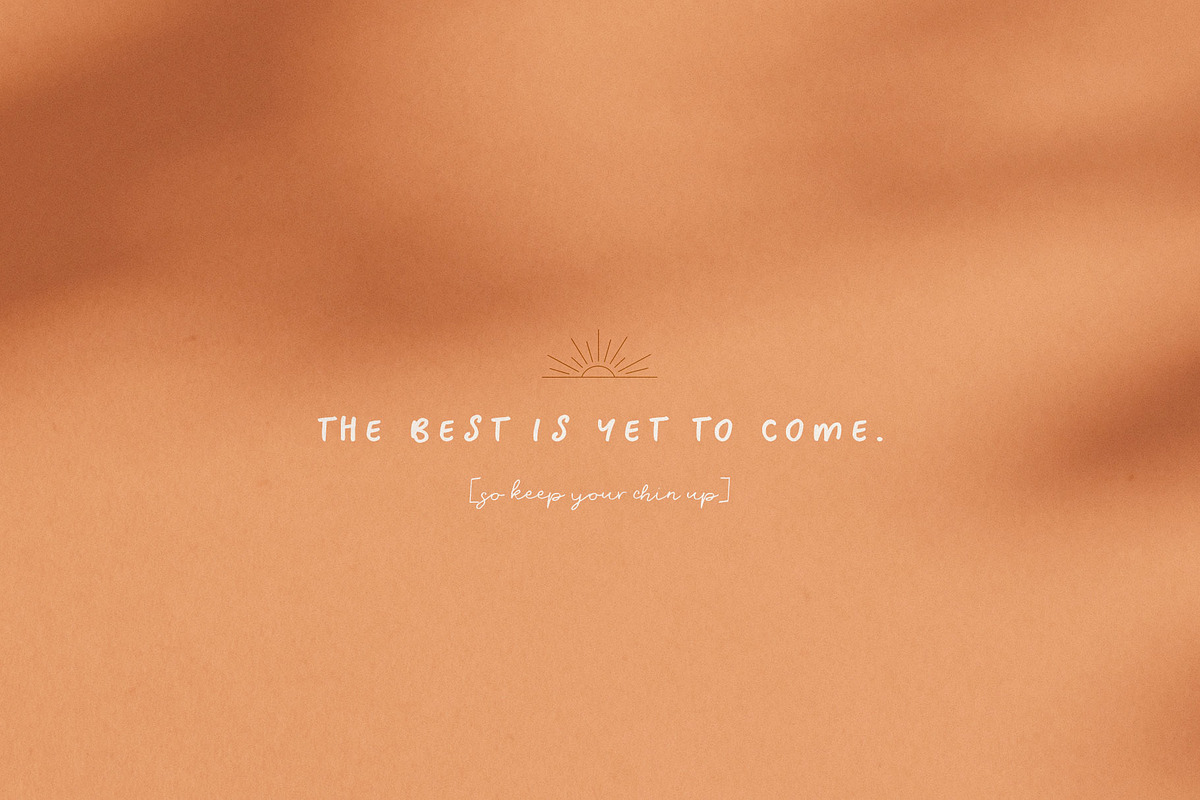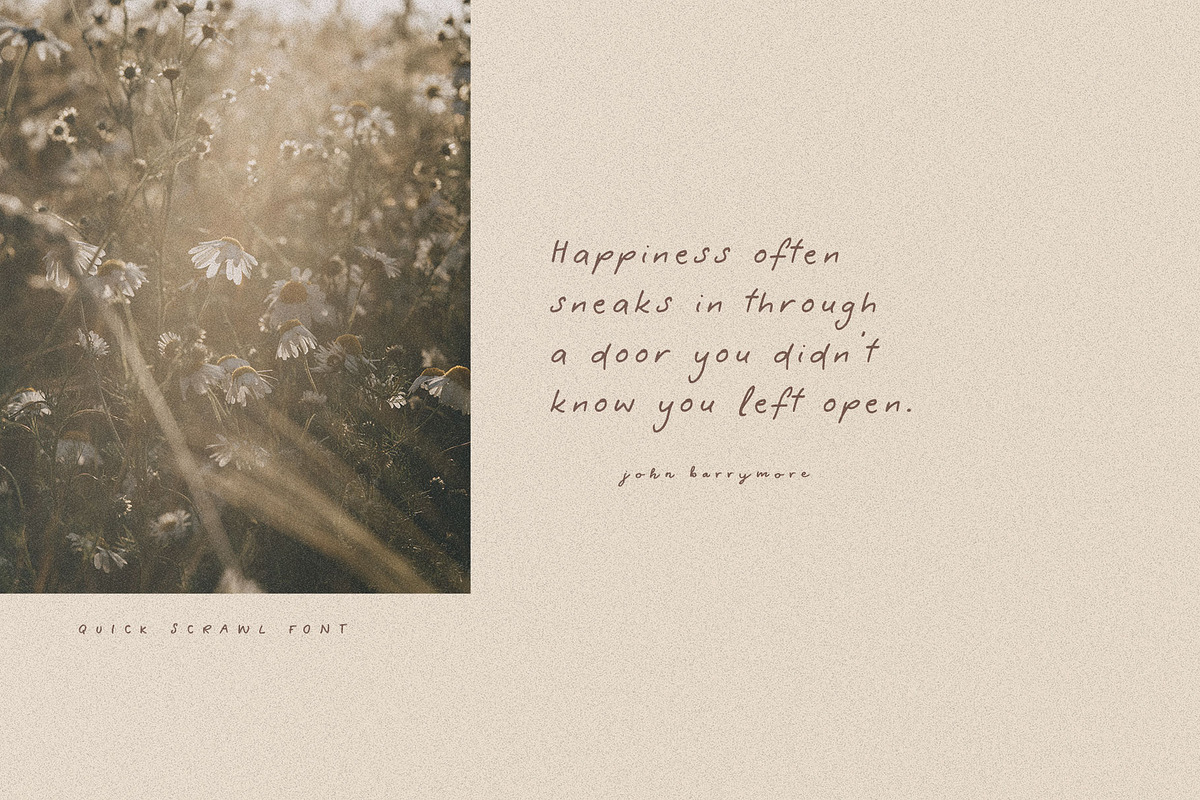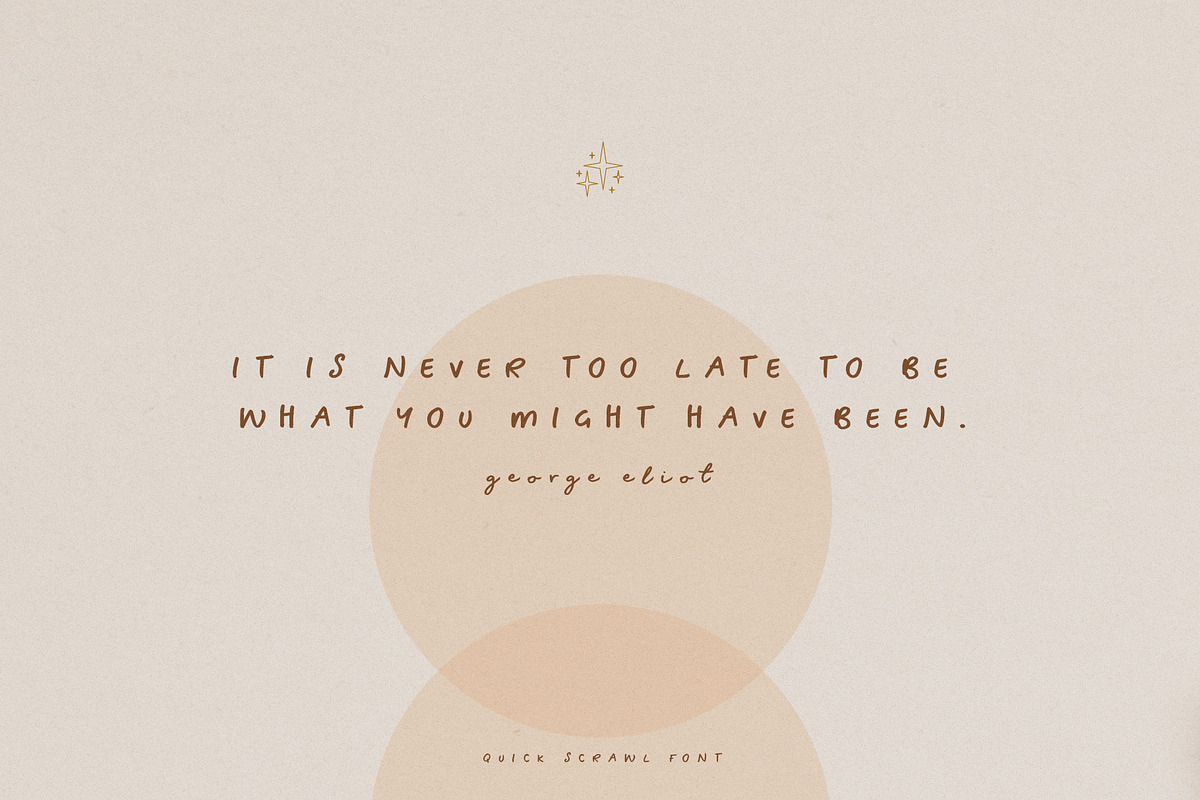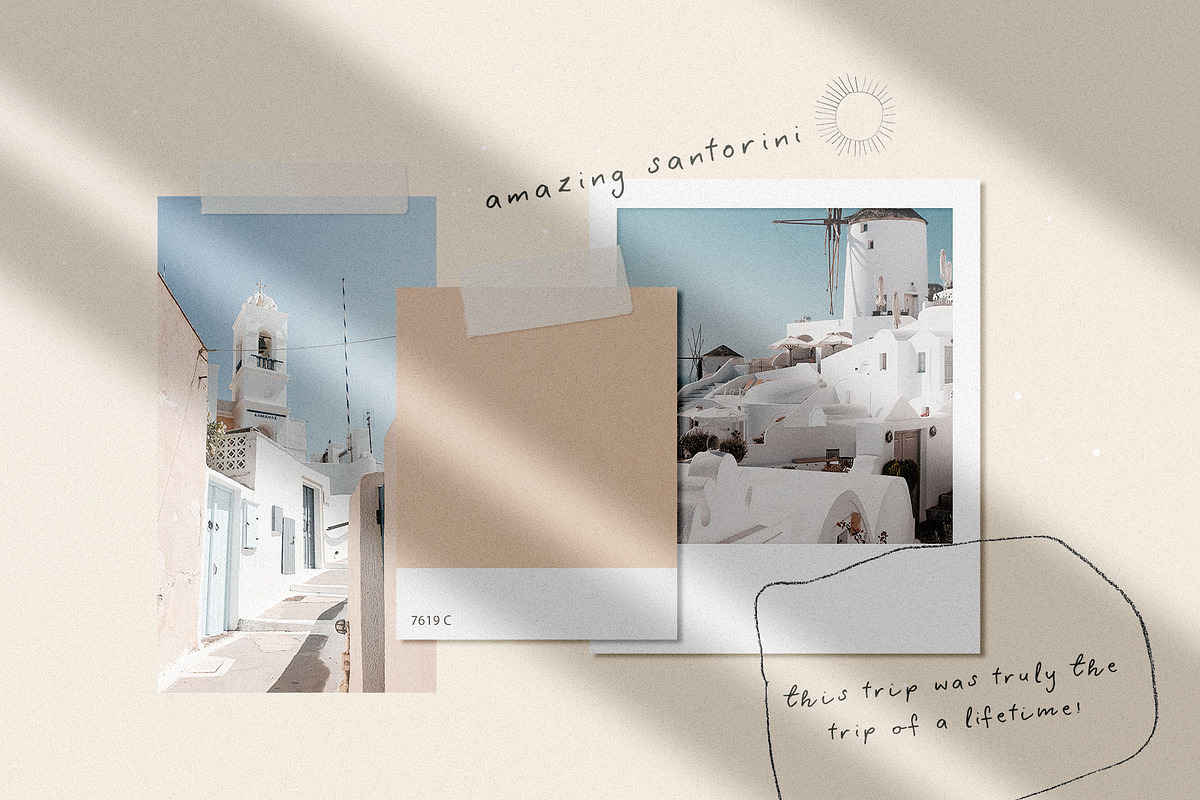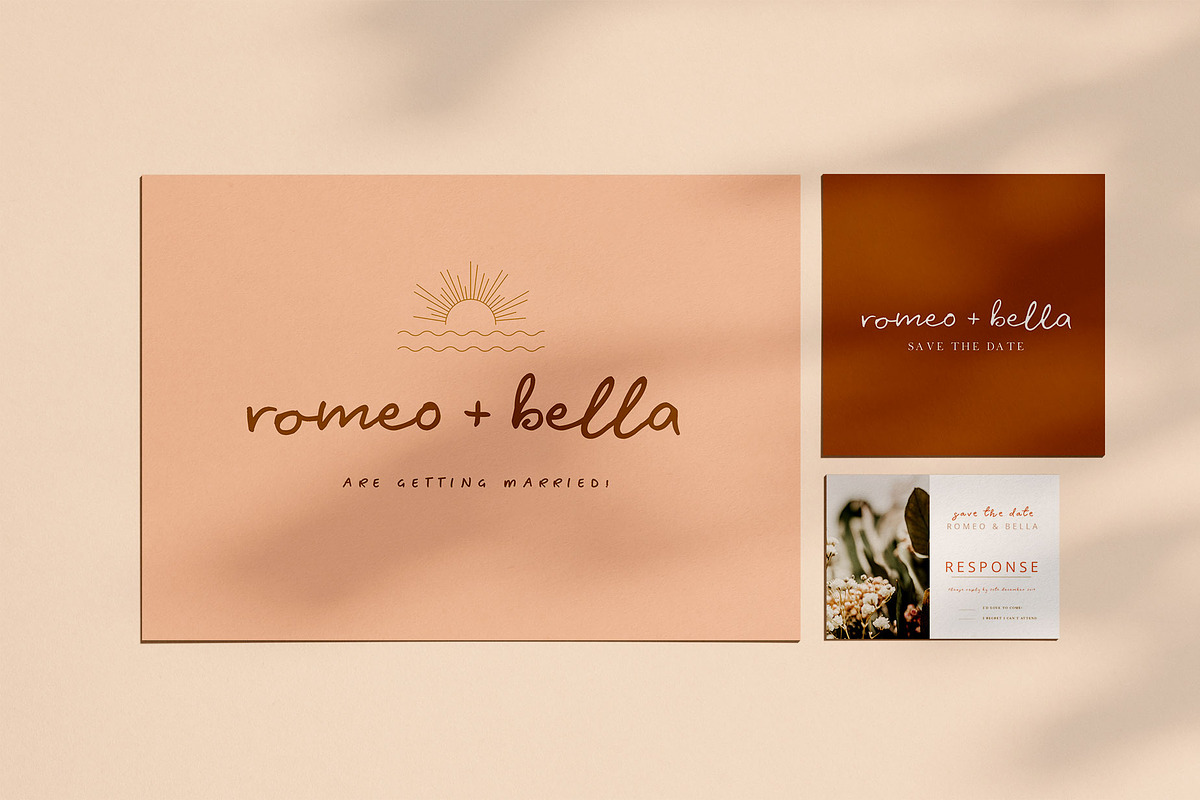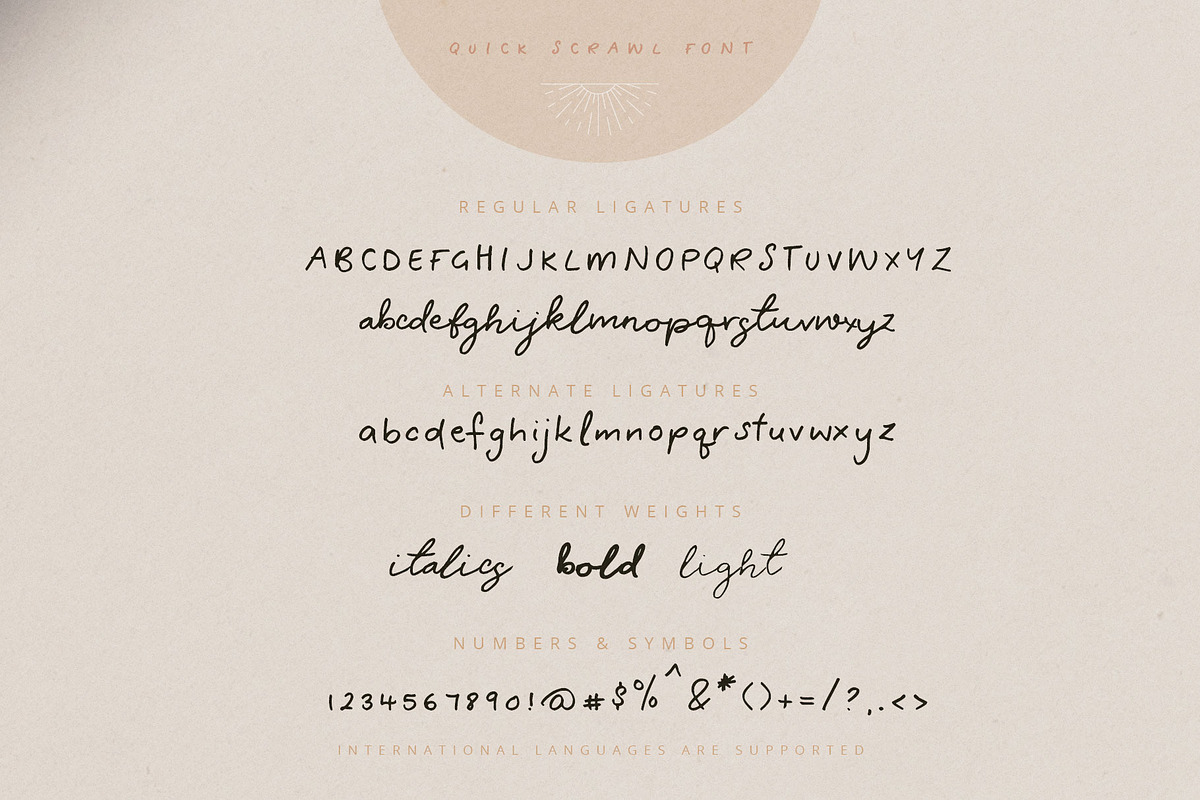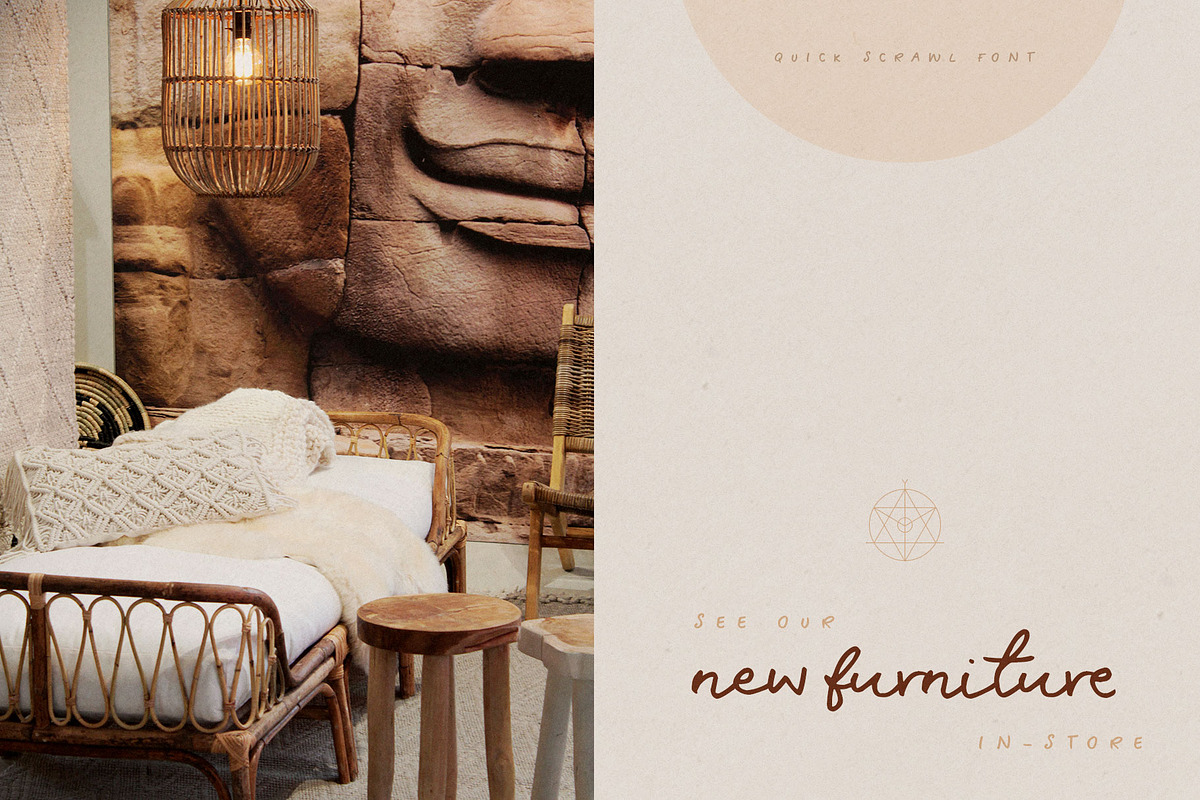
Quick Scrawl Script Font
Introducing Quick Scrawl. A hand written script font with a genuine hand drawn style.
Quick Scrawl comes with a full set of uppercase and lowercase characters, plus a full set of lowercase alternates. It is also in Regular, Italics, Bold and Light.
- Quick Scrawl comes with a full set of uppercase and lowercase characters, plus a full set of lowercase alternates.
- International Characters included.
Quick Scrawl Script Font by Creativeqube Design fits naturally into Branding, posters, packaging, typography.